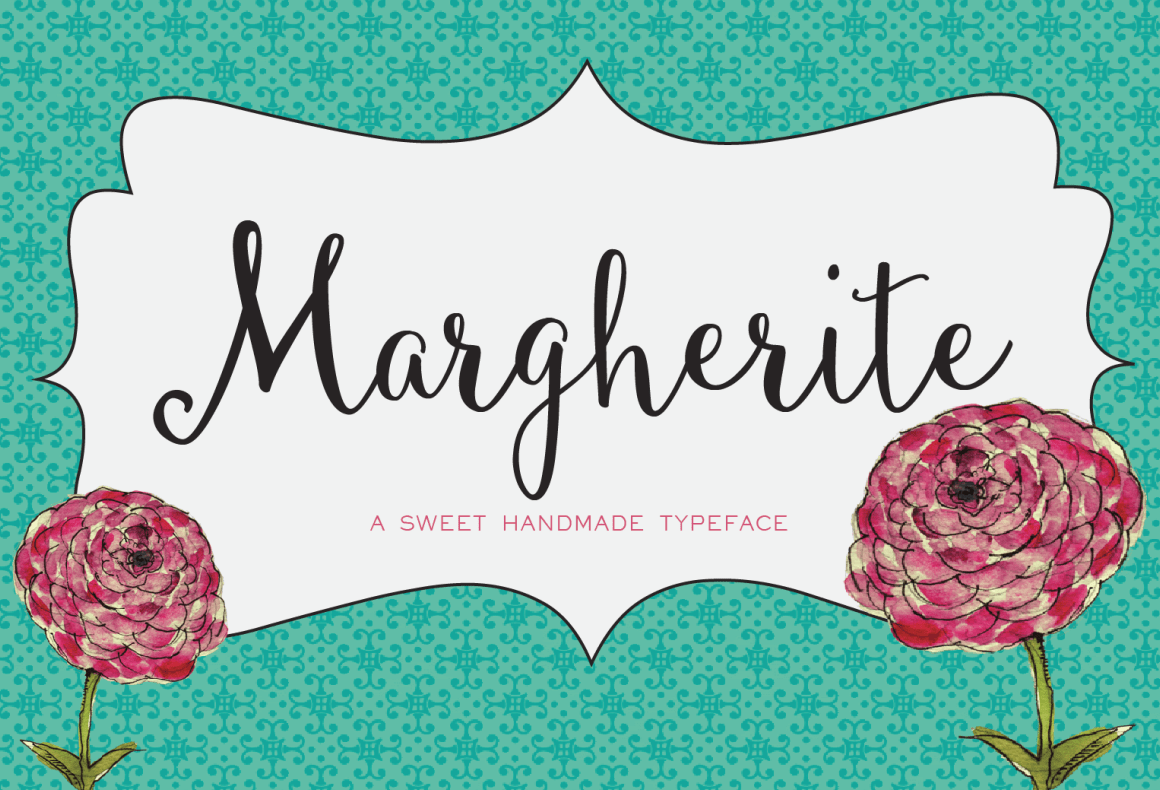
Margherite Script
Margherite is sweet feminine typeface, hand drawn characters dance decoratively along the baseline. Character look as if you hand-lettered them yourself!
Including over 300 different hand drawn characters for a range of languages and dialects.